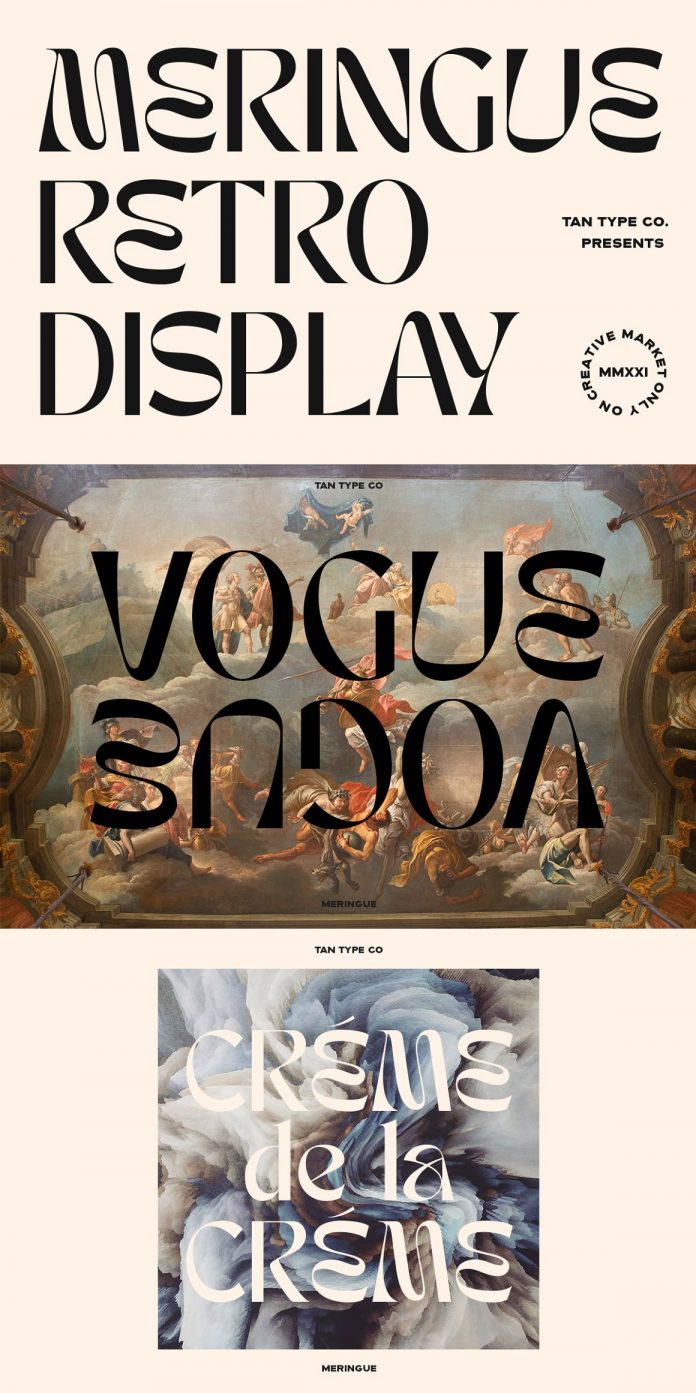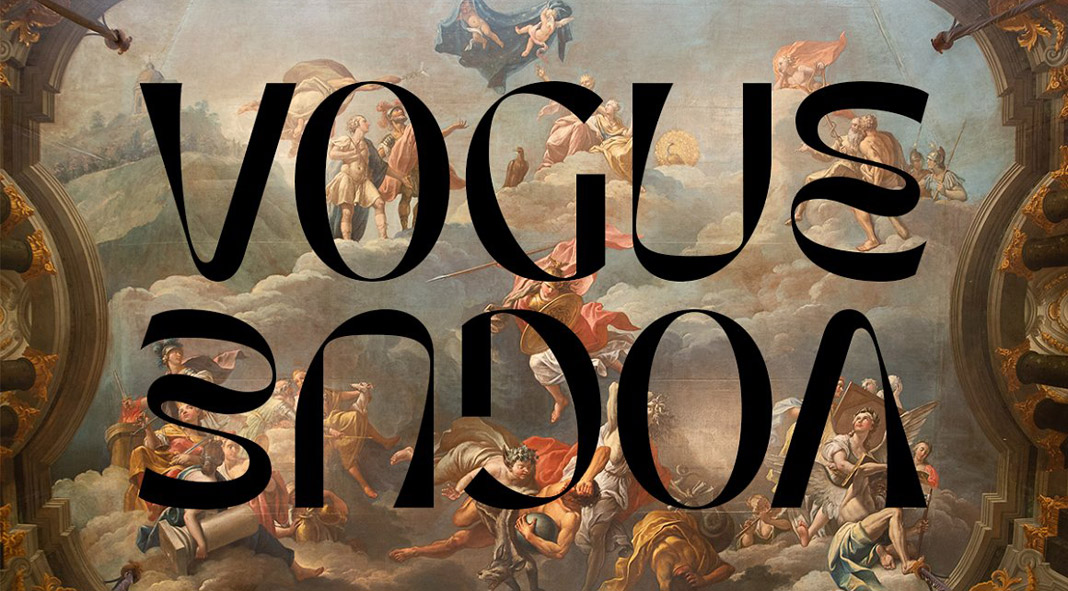
Discover TAN MERINGUE, a retro display typeface from TanType.
With TAN MERINGUE, the creative folks of foundry TanType have created an eye-catching retro display font. Its character set supports multiple languages. Whether print or web, the striking letter shapes are well suited to different applications. You can use it for text overlays on images, headlines, quotes, packaging, greeting cards, branding, social media, just to name a few. The TAN MERINGUE always delivers a strong expression. Just click on the following link to learn more about this exceptional retro display typeface.